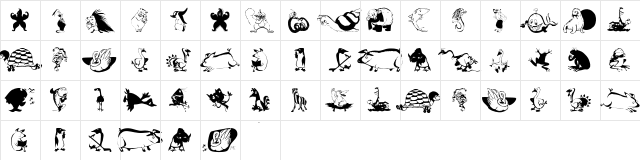
AnimalComedians Regular
Design Context for AnimalComedians Typeface
AnimalComedians is a composed and adaptable typeface that performs quietly and consistently across a wide range of design contexts.